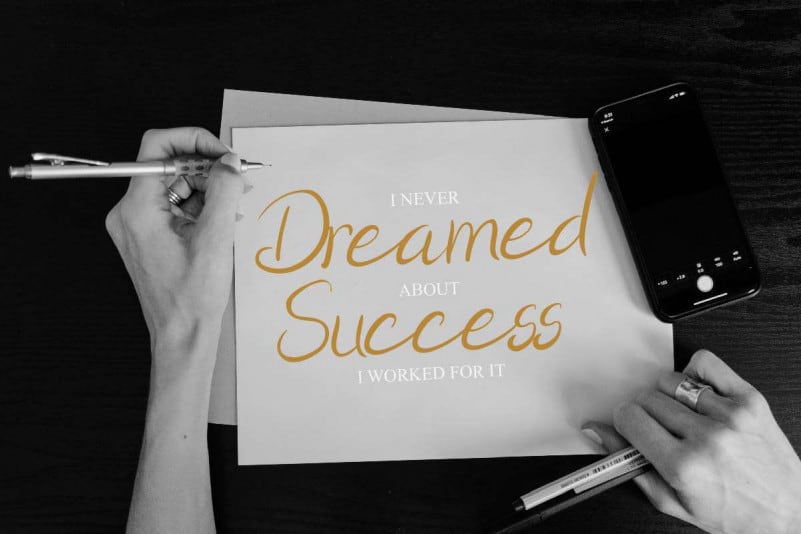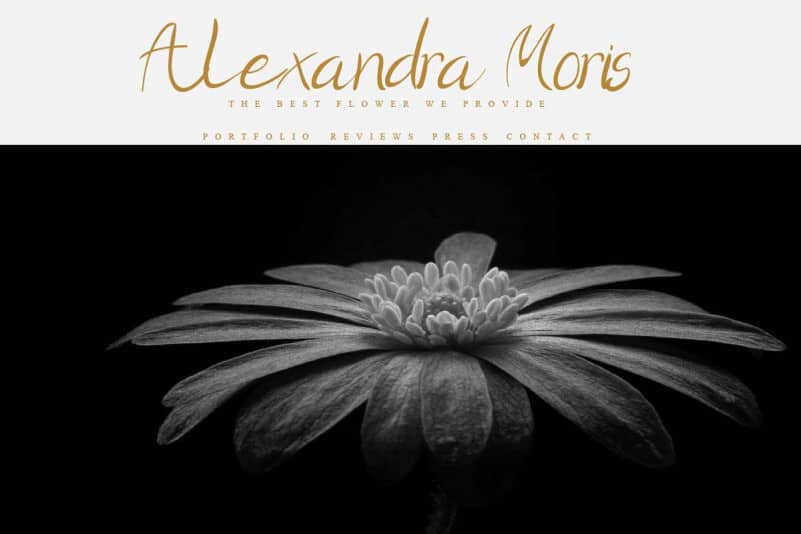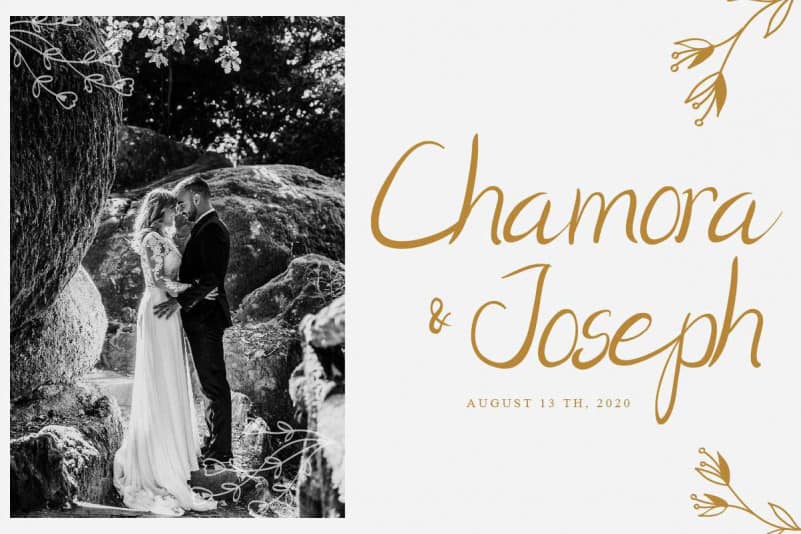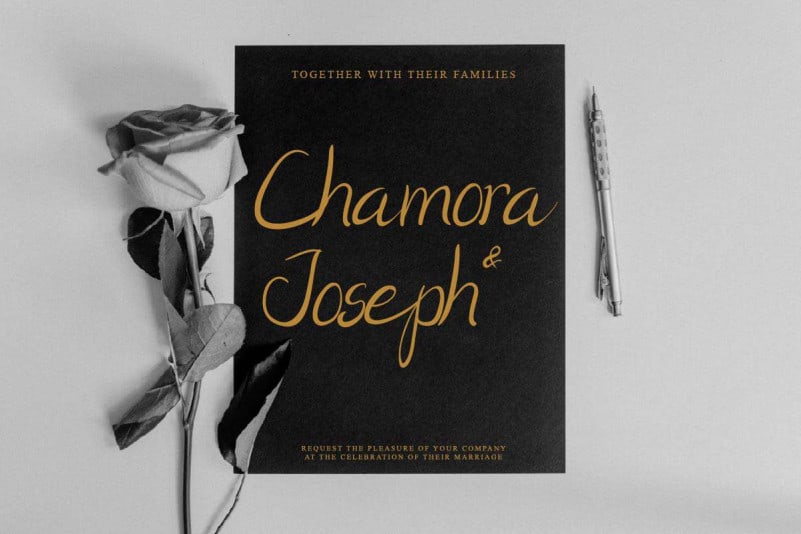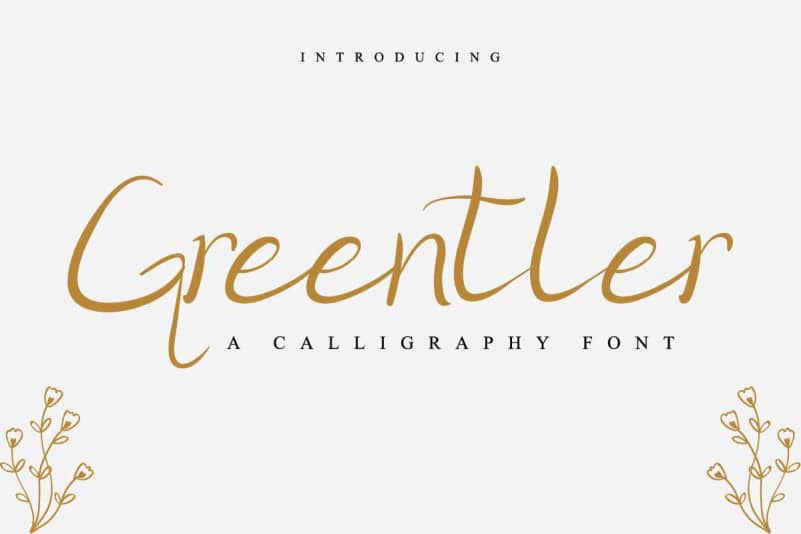
Greentler Calligraphy Font
Please welcome : Greentler Calligraphy Font. This is a calligraphy script font, made by two artists : Aghnia and Suci. Originally made in Bandung and Garut, Indonesia.
Greentler Calligraphy Font has a stunning characters style. You can using it for many industries and designs categories including: events, promotion, florist, gardening, makeup, architect, lawyer, cafe etc. With an extended licenses you can create anything you want : Branding (logo, stationery, bizcard, head letter, folder etc), promotions stuff (flyer, brochure, postcard etc), Digital marketing (Banner, Ads, cover etc), Personal Invitation, Magazine, Website etc.